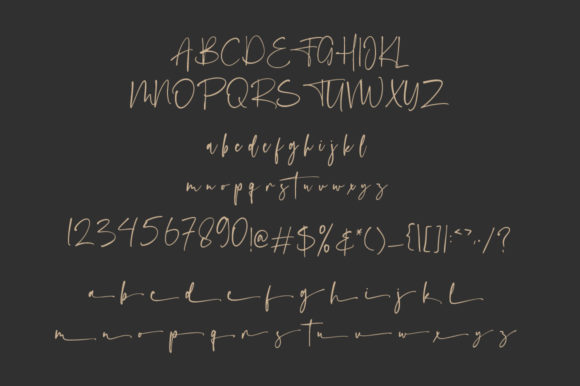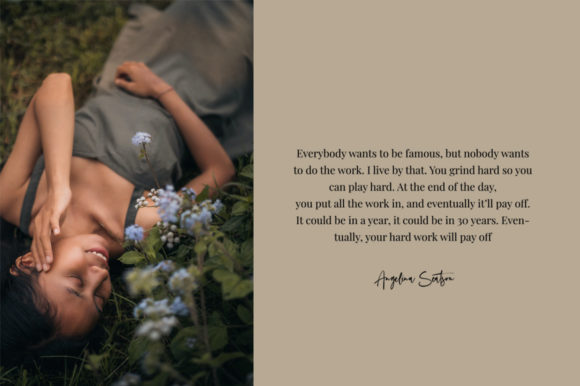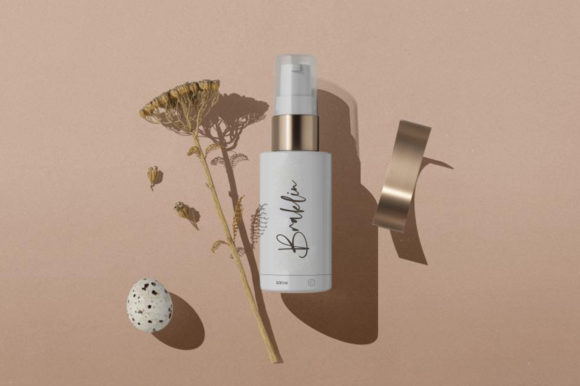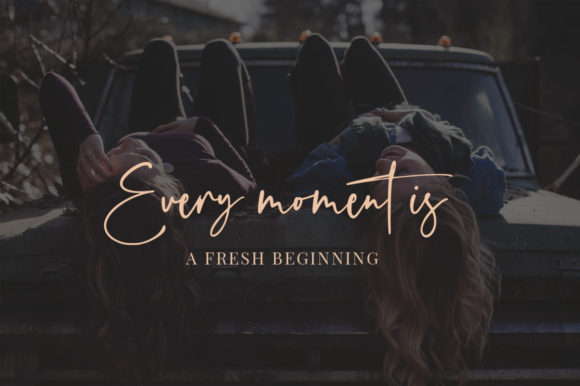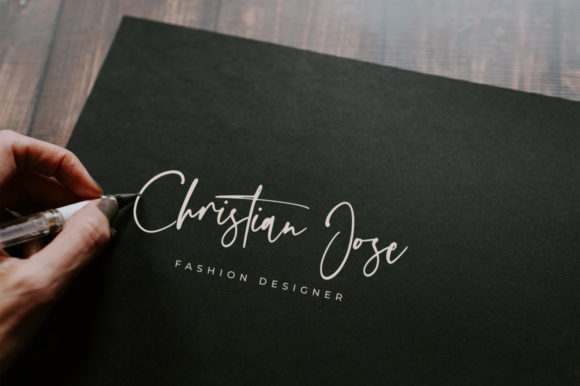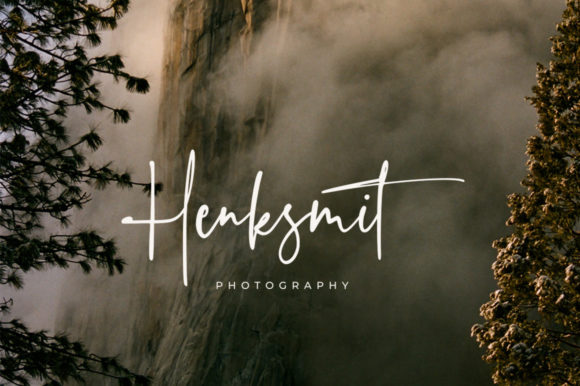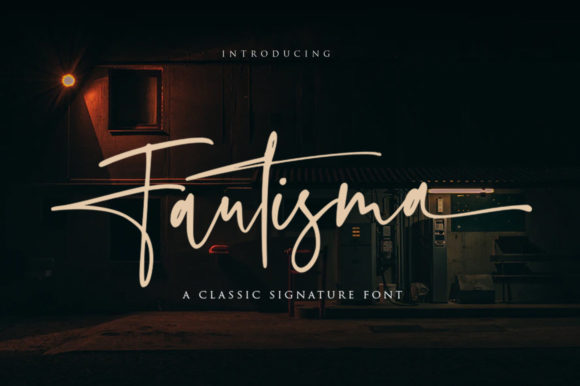
Fautisma Font: Elevate Your Creative Projects with a Unique Handwritten Style
In the world of typography, a good font can make all the difference in transforming a simple design into a stunning piece of art. For designers, crafters, and DIY enthusiasts, finding the perfect font can be a daunting task. That’s where Fautisma Font comes in – a unique and simple handwritten font that can elevate your creative projects to the next level.
What is Fautisma Font?
Fautisma Font is a carefully crafted handwritten font that exudes simplicity and elegance. Its unique style makes it perfect for a wide range of creative projects, from Instagram posts and stories to calligraphy scripts and DIY crafts. Whether you’re a professional designer or a crafting enthusiast, Fautisma Font is an excellent addition to your typography toolkit.
Key Features of Fautisma Font
• Unique and Simple Design: Fautisma Font boasts a distinctive handwritten style that is both simple and sophisticated.
• Versatile: This font is perfect for various creative projects, including Instagram posts, calligraphy scripts, DIY crafts, and more.
• Elegant and Readable: Fautisma Font is designed to be easy to read, making it perfect for both digital and print applications.
Uses of Fautisma Font
Fautisma Font is an incredibly versatile font that can be used in a variety of creative projects. Here are some ideas to get you started:
• Instagram Posts and Stories: Add a personal touch to your Instagram feed with Fautisma Font. Use it to create stunning quotes, captions, and stories that will engage your followers.
• Calligraphy Scripts: Fautisma Font is perfect for calligraphy scripts, making it ideal for DIY projects, such as handmade cards, invitations, and gift tags.
• DIY Crafts: Use Fautisma Font to add a personal touch to your DIY crafts, such as wood signs, canvas art, and more.
• Graphic Design Projects: Fautisma Font can be used in a variety of graphic design projects, including brochures, flyers, and posters.
Benefits of Using Fautisma Font
Using Fautisma Font in your creative projects offers several benefits, including:
• Unique and Creative Designs: Fautisma Font allows you to create unique and creative designs that will stand out from the crowd.
• Time-Saving: With Fautisma Font, you can quickly and easily create stunning designs without spending hours on typography.
• Consistency: Fautisma Font ensures consistency in your designs, making your brand or personal style instantly recognizable.
Tips for Using Fautisma Font
Here are some tips for getting the most out of Fautisma Font:
• Experiment with Colors: Fautisma Font looks great in a variety of colors, so don’t be afraid to experiment and find the perfect hue for your design.
• Mix and Match Fonts: Combine Fautisma Font with other fonts to create a unique and visually appealing design.
• Pay Attention to Spacing: Make sure to adjust the spacing between letters and words to ensure your design looks clean and professional.
Fautisma Font is a unique and simple handwritten font that can elevate your creative projects to the next level. With its elegant and readable design, versatility, and ease of use, this font is perfect for designers, crafters, and DIY enthusiasts. Whether you’re looking for fonts for Instagram or calligraphy scripts for DIY projects, Fautisma Font is an excellent choice. So why wait? Download Fautisma Font today and turn your creative ideas into stunning pieces of art!